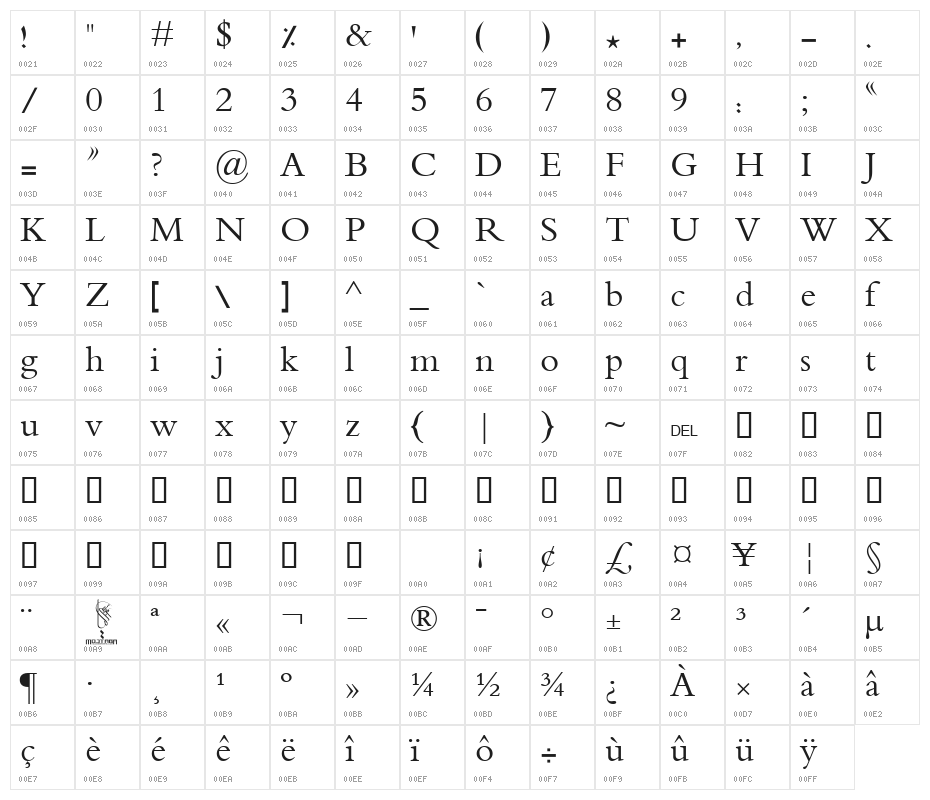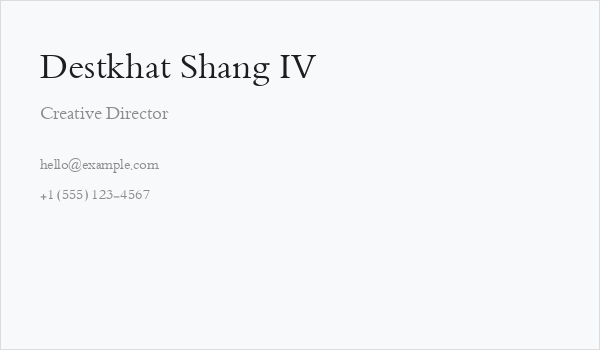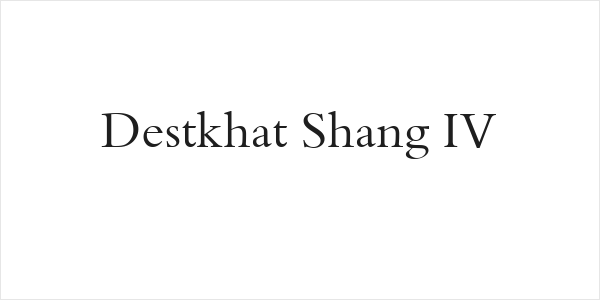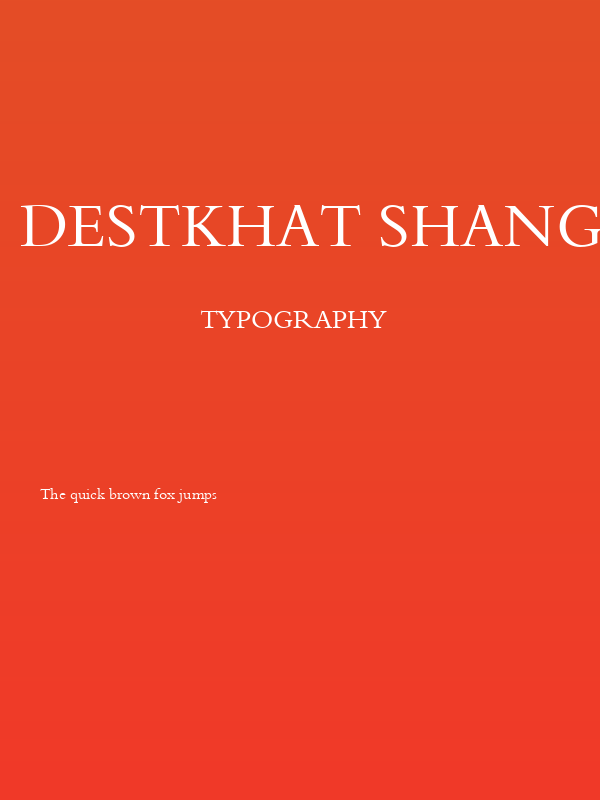
Destkhat Shang IV Font
Destkhat Shang IV Description
This font is a classic serif typeface characterized by its elegant and traditional design. The letters feature distinct serifs that add a touch of sophistication and readability, making it suitable for both print and digital media. The uppercase letters are well-proportioned, with a slightly taller height that commands attention. The lowercase letters maintain a consistent style, with smooth curves and balanced proportions. The numerals are clear and legible, designed to complement the overall aesthetic of the typeface. Special characters are thoughtfully crafted, ensuring versatility across various applications. The font's timeless appeal makes it a great choice for projects requiring a formal and authoritative look.
| Proposed Projects | Ideal for book covers, formal invitations, editorial layouts, and branding materials. |